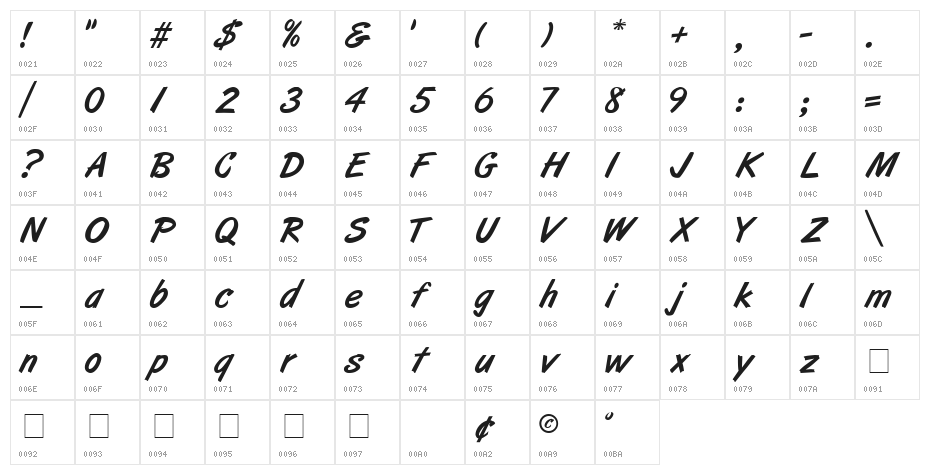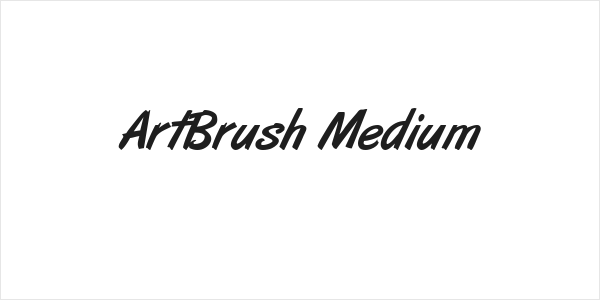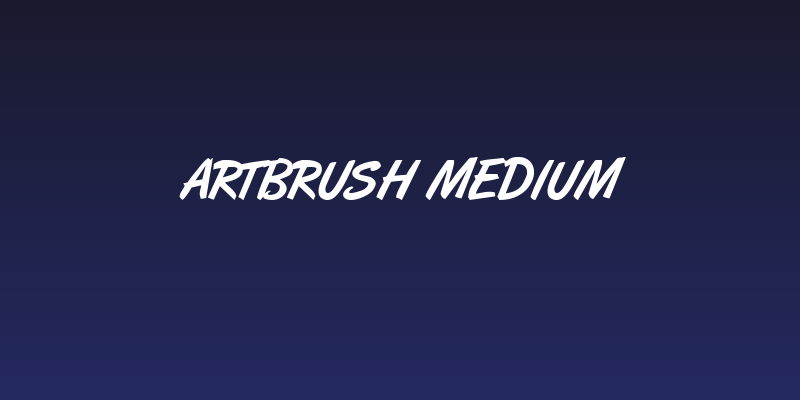
ArtBrush Medium Font
ArtBrush Medium Description
This font exudes a dynamic and energetic feel, characterized by its bold, brush-like strokes that mimic the fluidity of hand-painted lettering. The uppercase and lowercase letters maintain a consistent slant, adding to the sense of motion and creativity. The numerals and special characters are equally expressive, ensuring a cohesive look across all text elements. The font's design is both artistic and legible, making it suitable for a variety of creative applications.
Proposed ProjectsIdeal for branding, posters, artistic projects, and any design requiring a bold, creative touch.